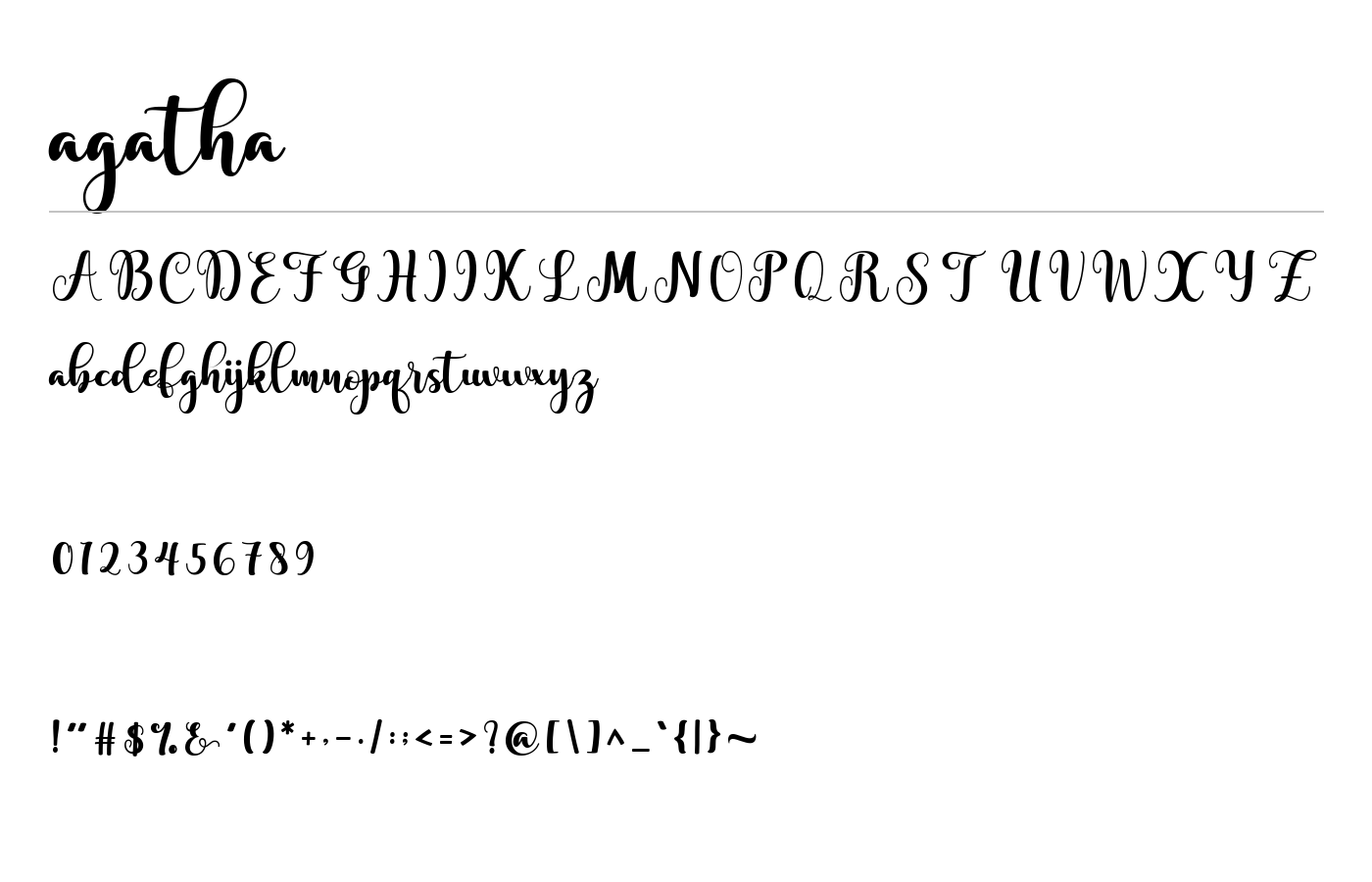
Agatha is a stylish script font that combines elegant cursive forms with a touch of playful charm. Its moderately bold weight, smooth curves, and distinctive swashes make it perfect for branding, invitations, and creative projects that want a sophisticated yet approachable feel. Ideal for headlines and decorative text, Agatha adds a warm, hand-lettered personality to any design.
agatha Font
About agatha Font
| Font family | agatha Font |
| Designer | Cut Story / Ramadhana |